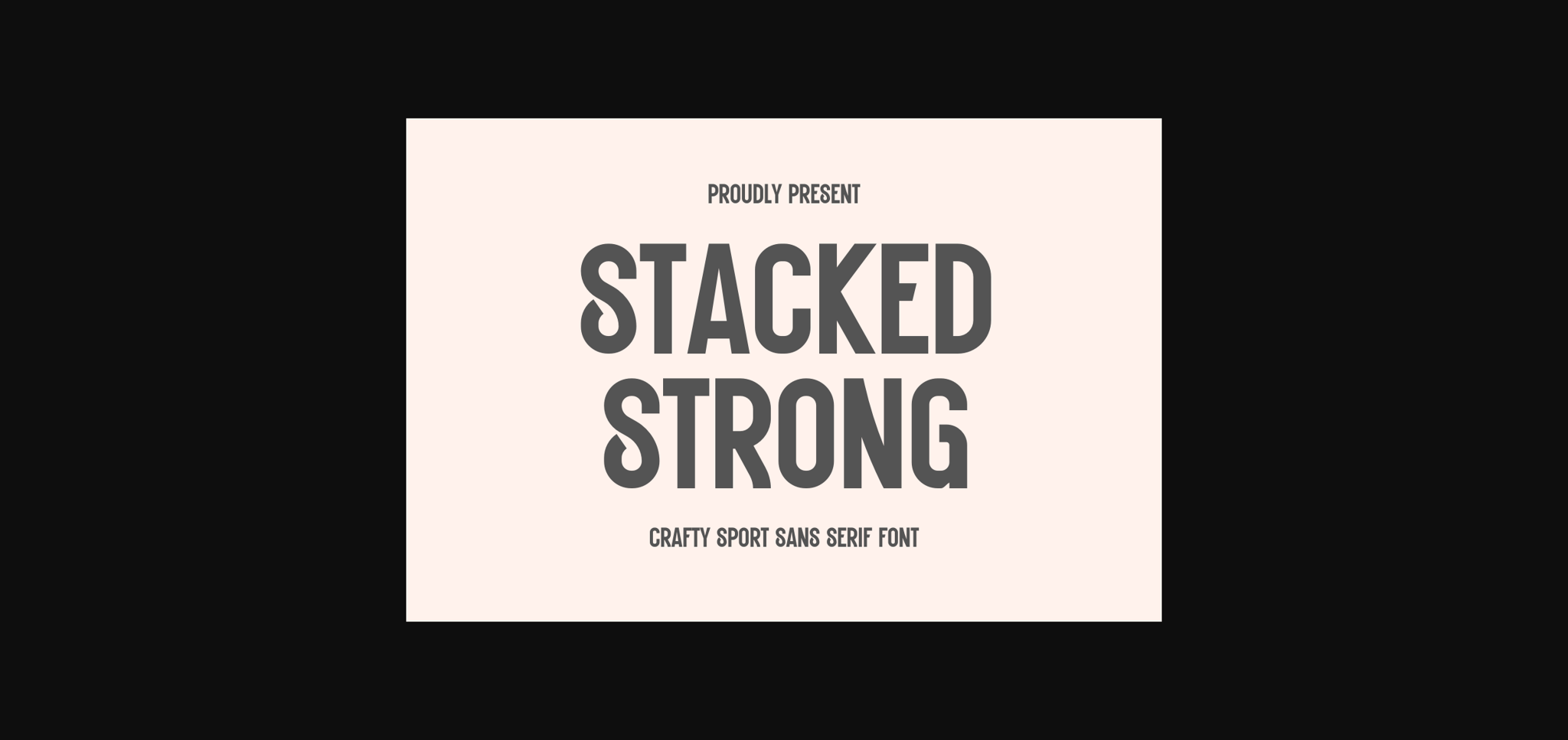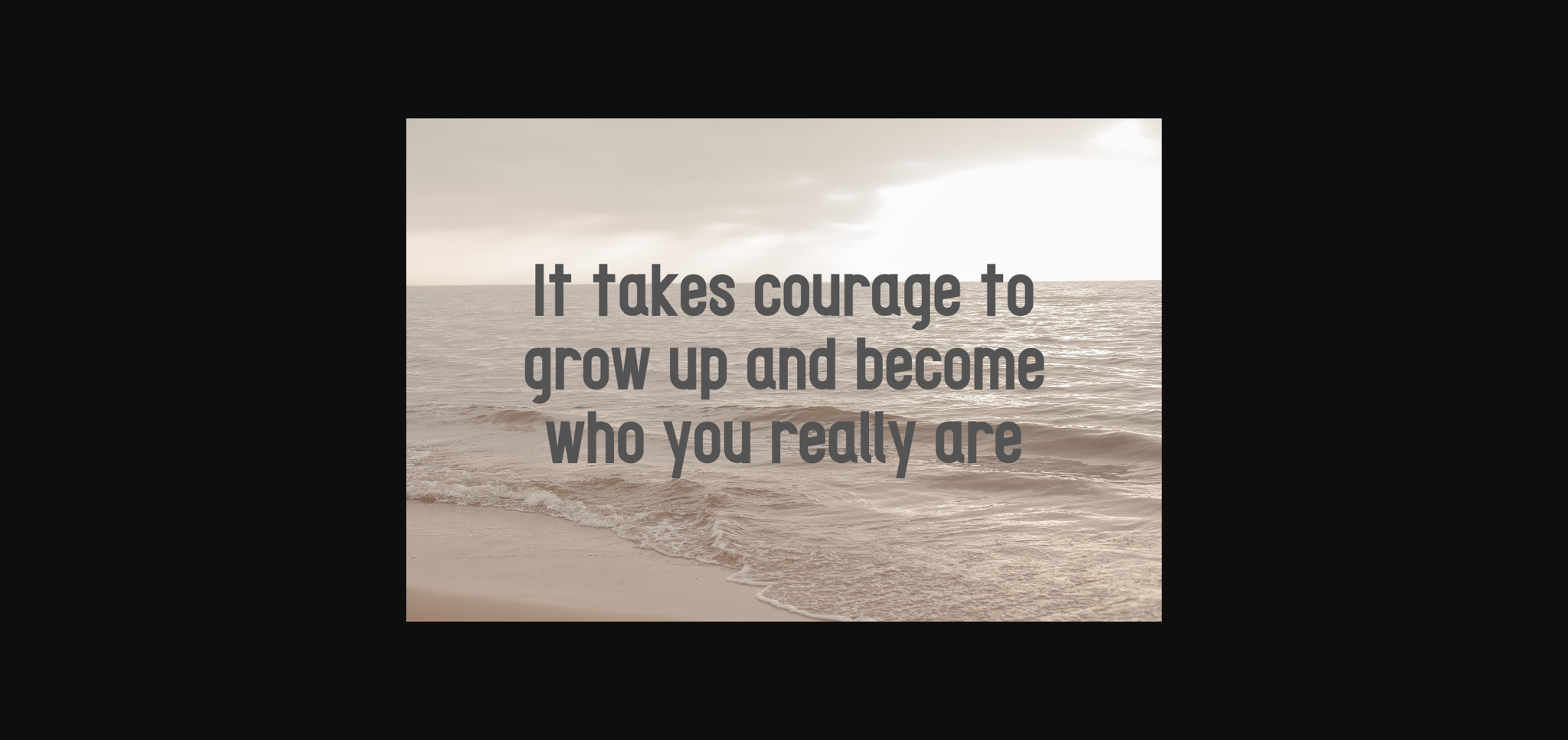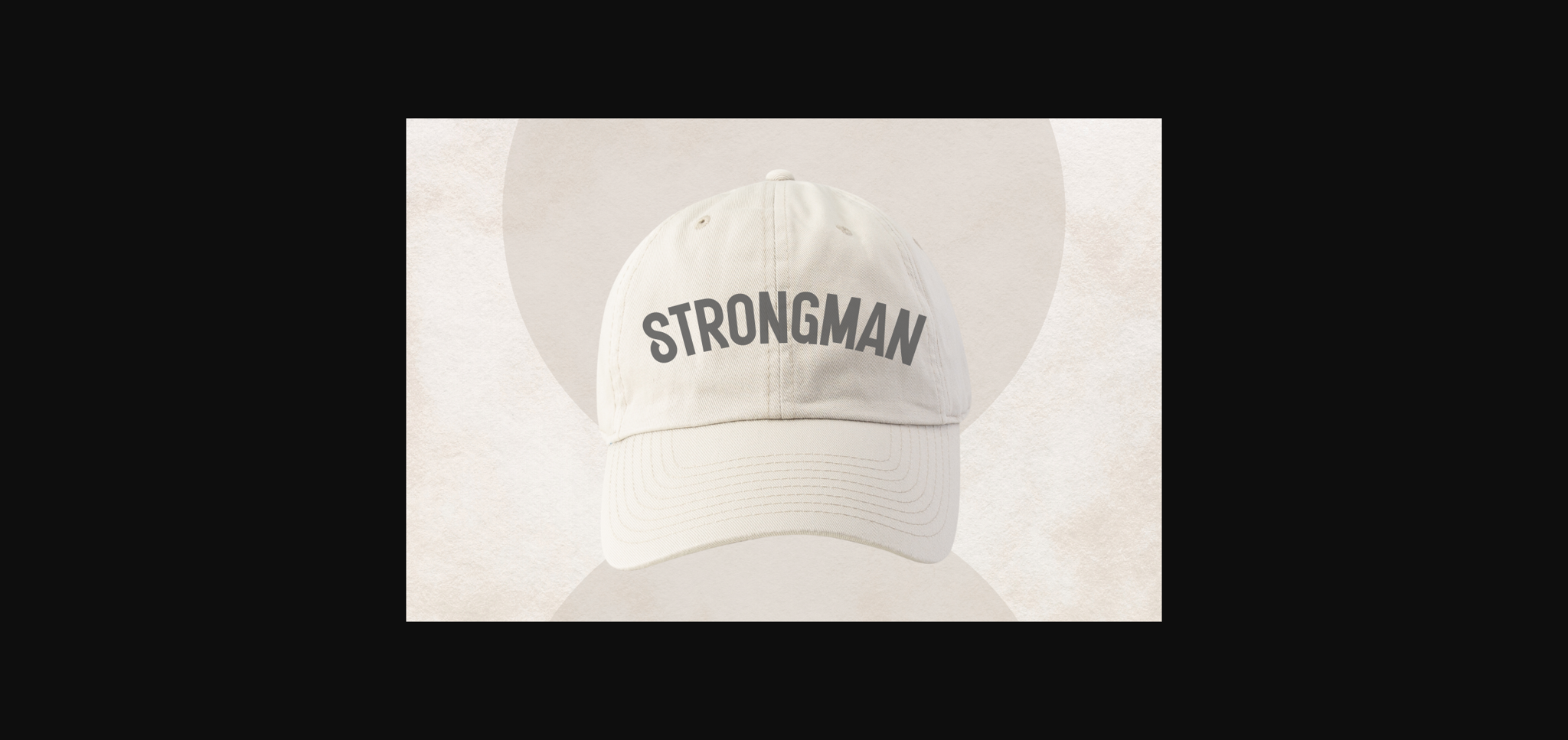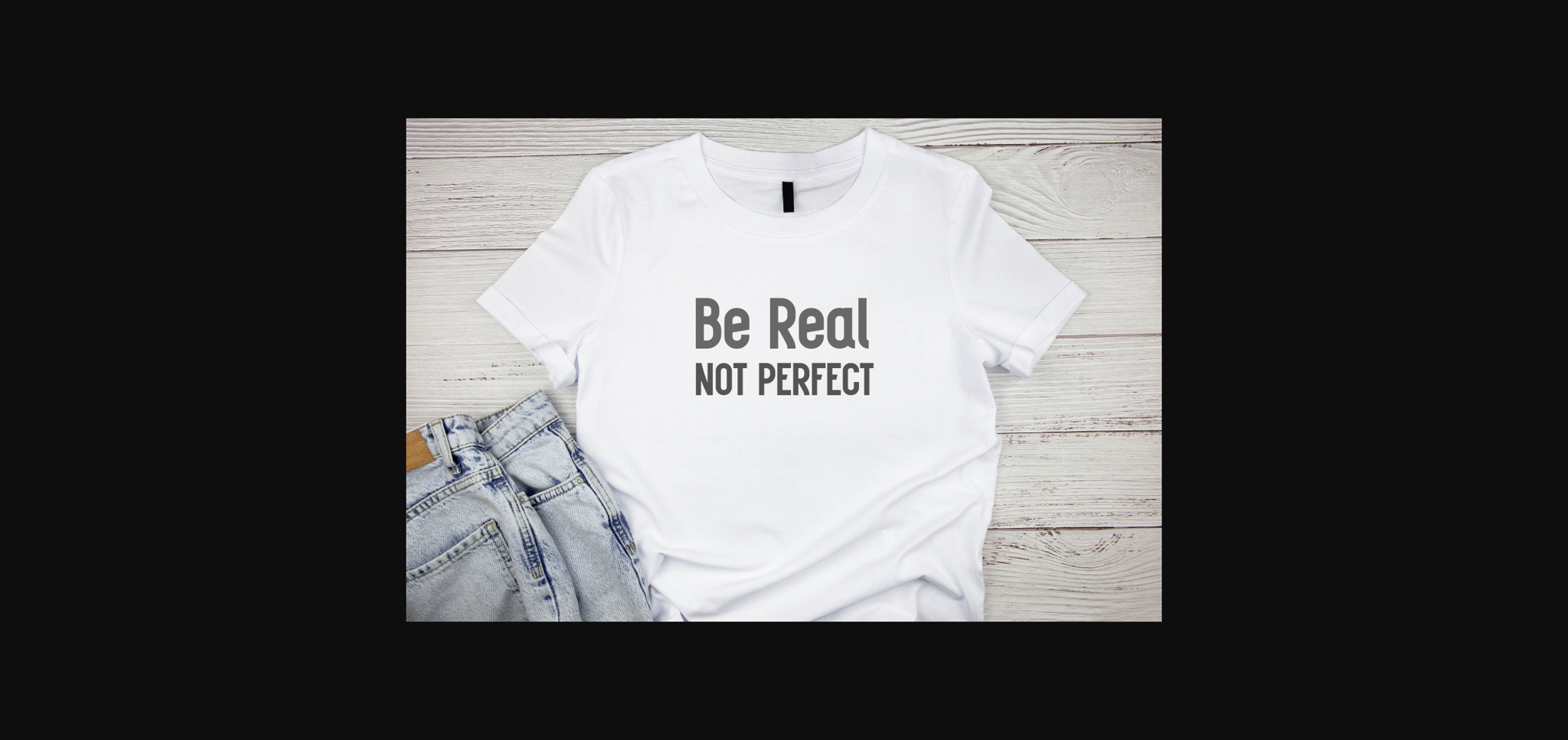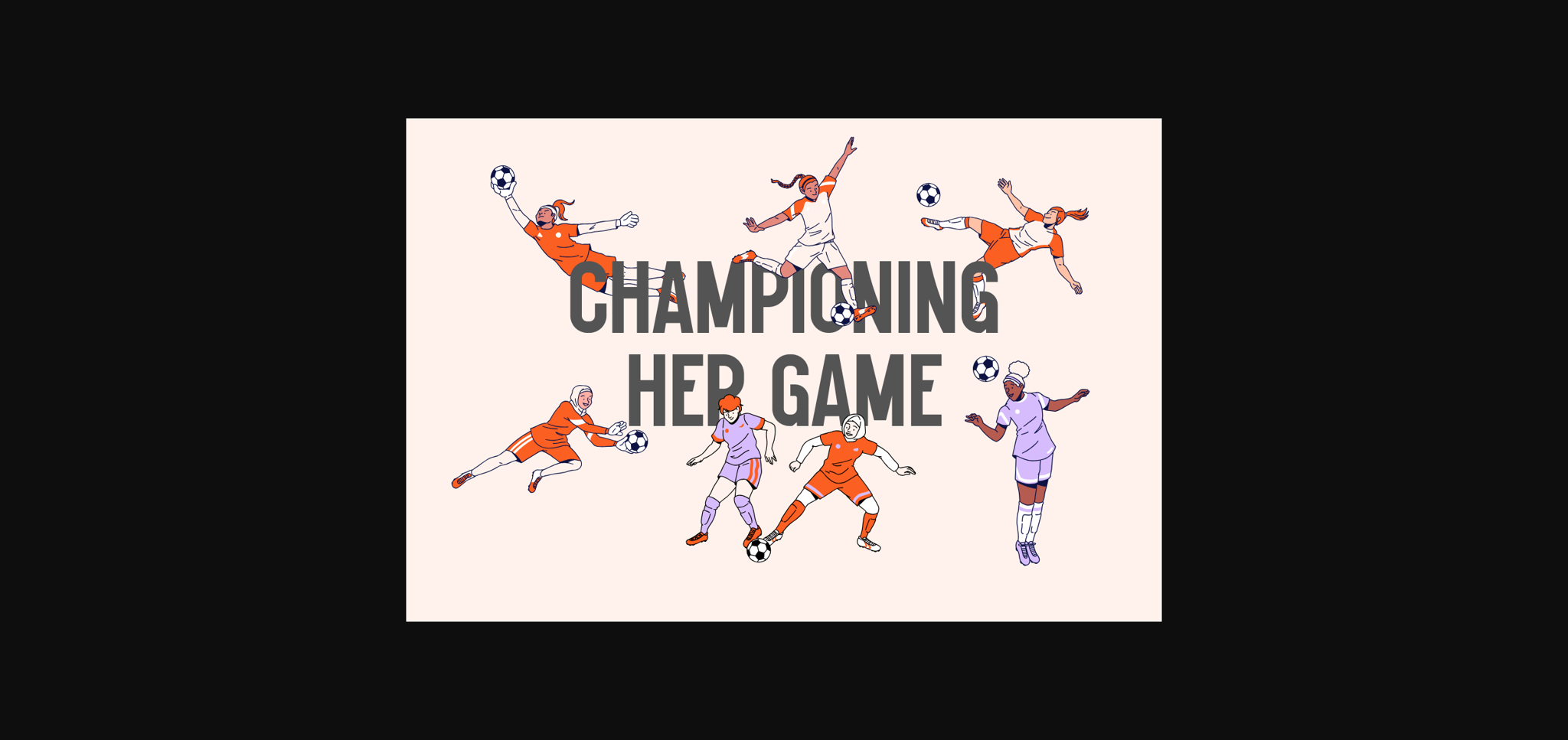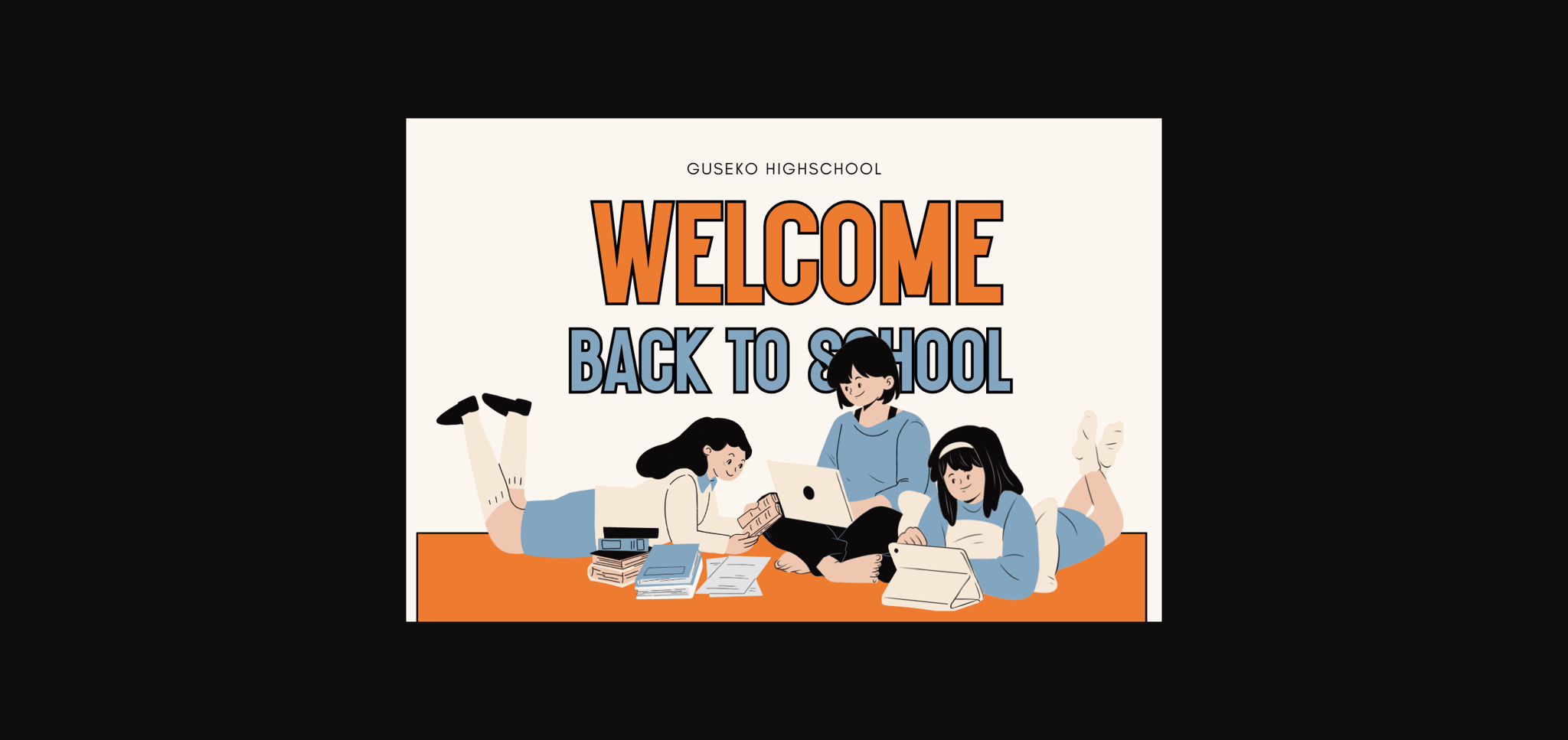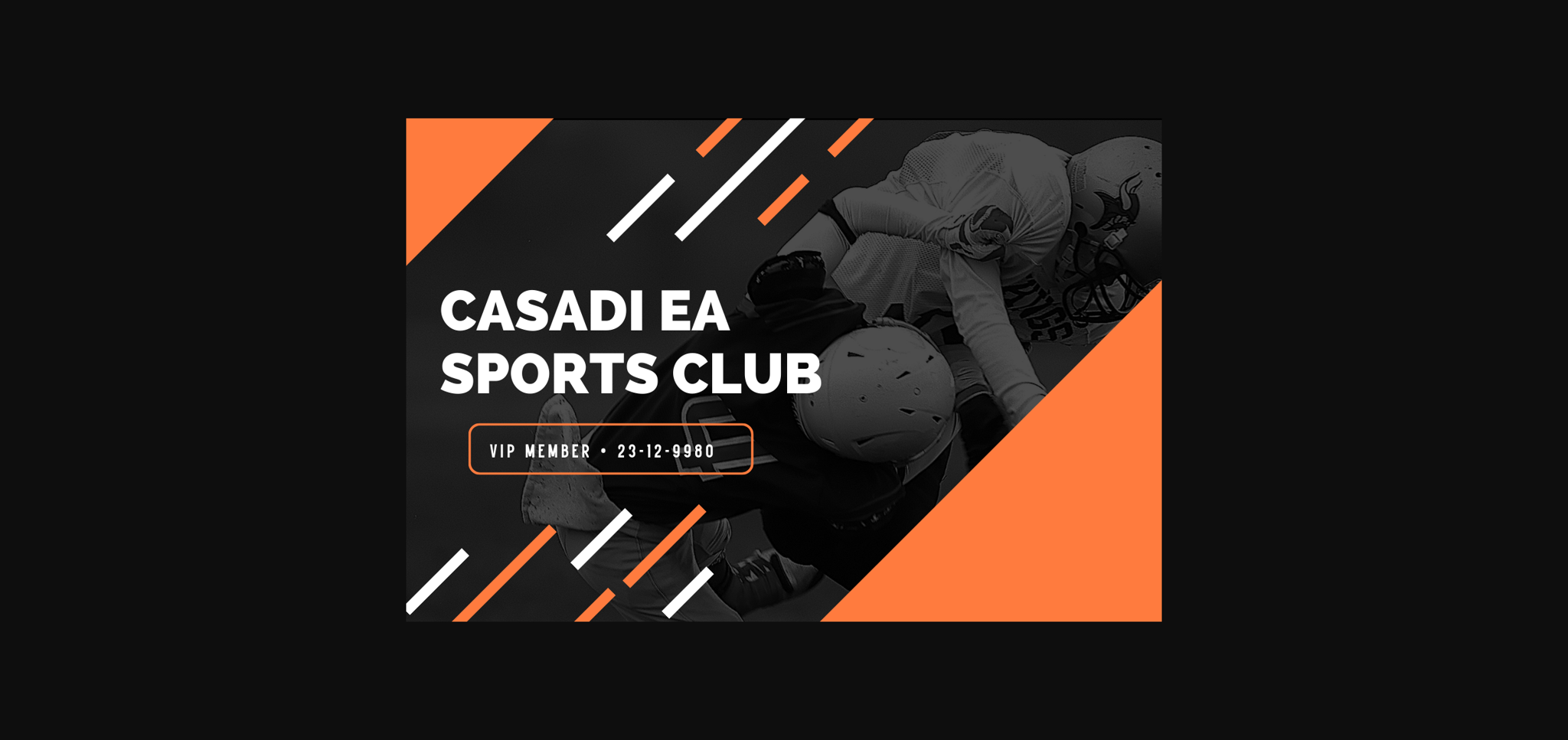
Stacked Strong Font
About Stacked Strong Font
Stacked Strong is a sporty varsity sans serif font. This font is suitable for creative needs such as labels, titles, DIY, crafts, stickers, branding, business, logos, t-shirts, SVG, Cricut, and many more. This font is also suitable for various event themes such as Easter, Fall. autumn, valentine, wedding and many other creative ideas!